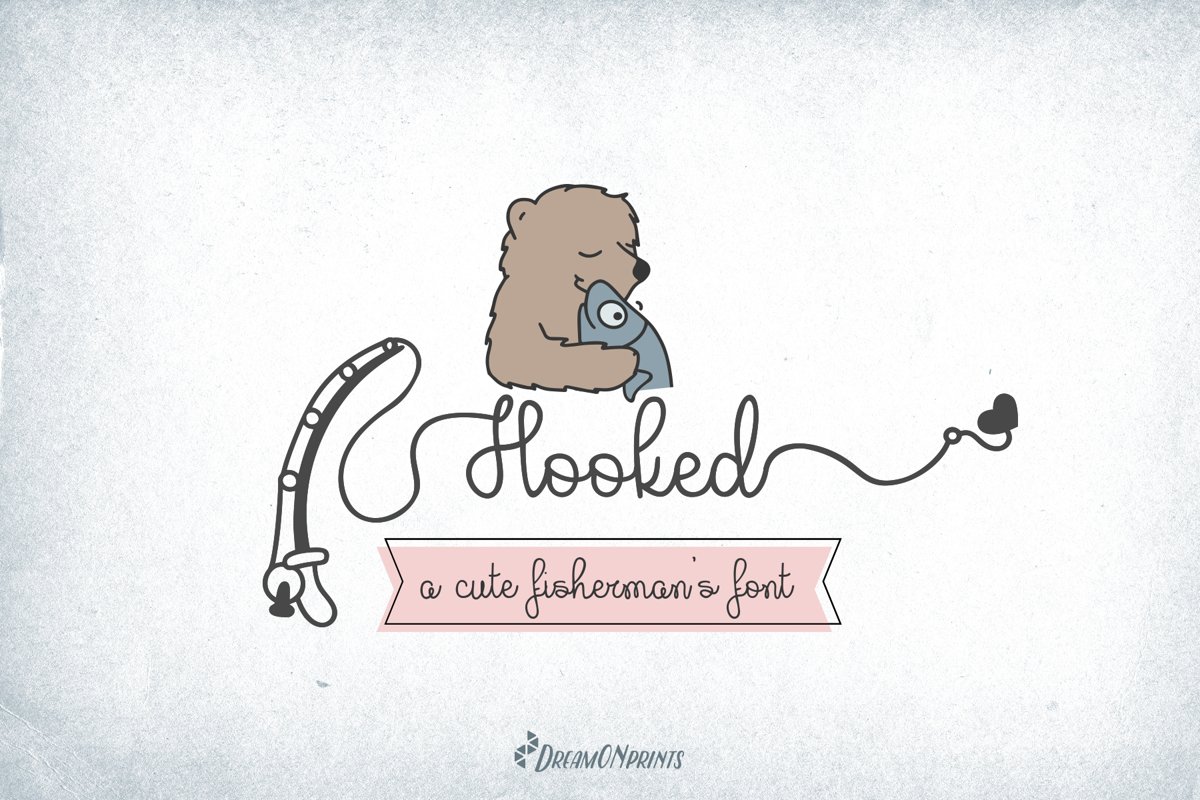
Fisherman Script - A Fun Script Font with Fishing Extras
Fisherman Script - A Fun Script Font with Fishing Extras!
The main font has all the characters included with the font and in order to access the fishing extras you'll need to use a character map.  The second font file includes just the fishing extras.  This second file may be a preference to some and most user friendly for newer users to get your fishing extras.  A PDF key has been included.